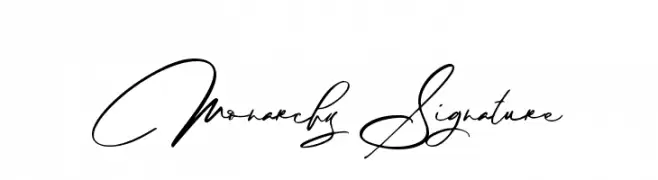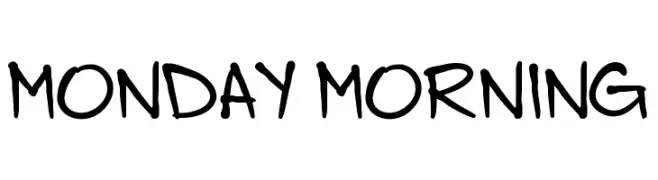
• mohr
A bold, geometric font with a futuristic and impactful design.
• mohr
A bold, geometric font with circular motifs and unique cutouts.
• Monallesia Monogram
An elegant, decorative monogram font with heart motifs and cursive strokes.
• Monarchy Signature
An elegant, cursive script font with fluid, signature-like strokes.
• Monday July
A casual, handwritten cursive font with a flowing, elegant style.
• Monday Morning
A playful, handwritten font with a casual and informal style.
• Monik Aprilia
A playful and whimsical handwritten font with fluid letterforms.
• Monika
• Monika Bold
• MonkeysTheatre
A whimsical decorative font featuring monkeys and architectural silhouettes.